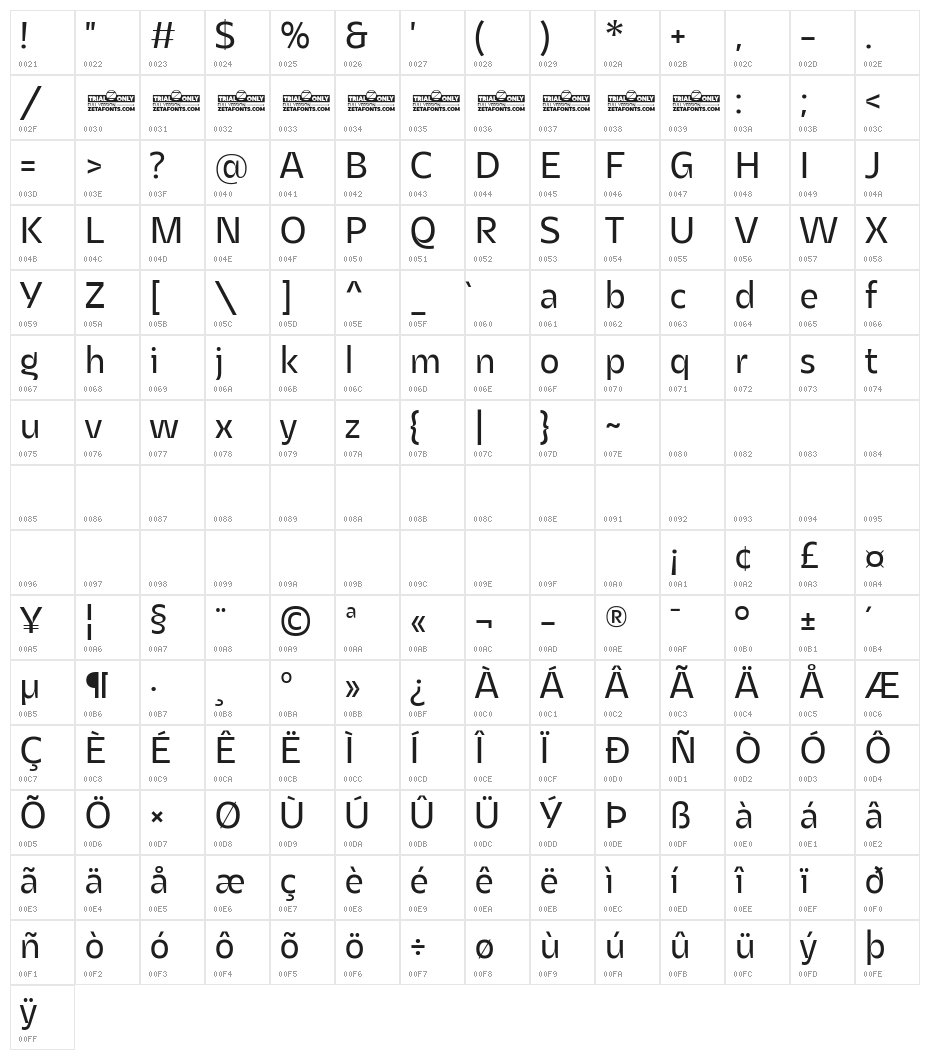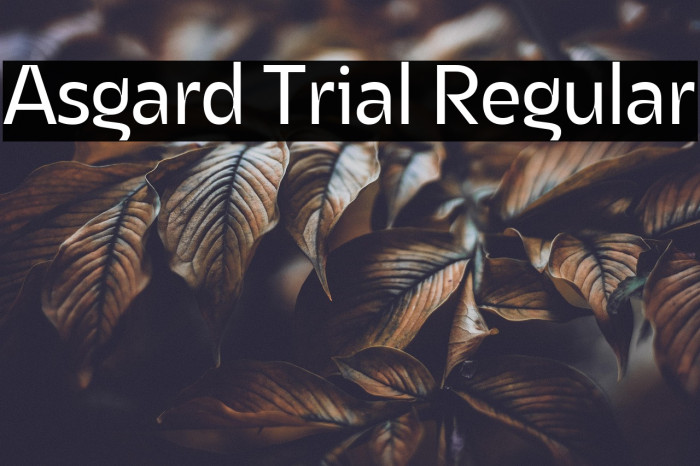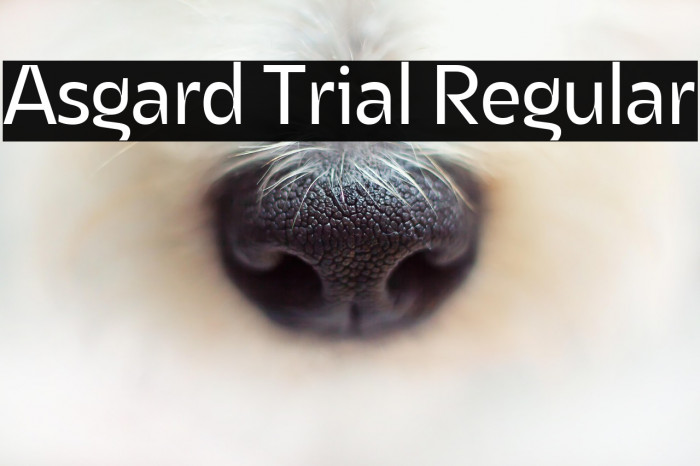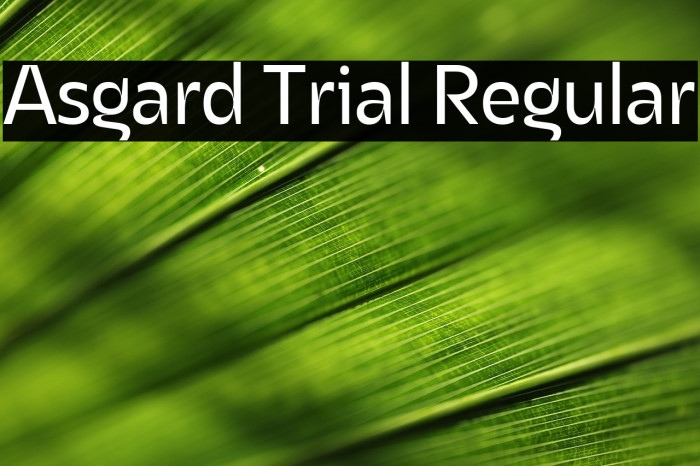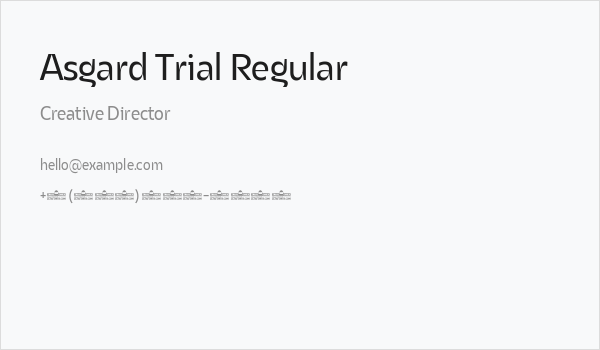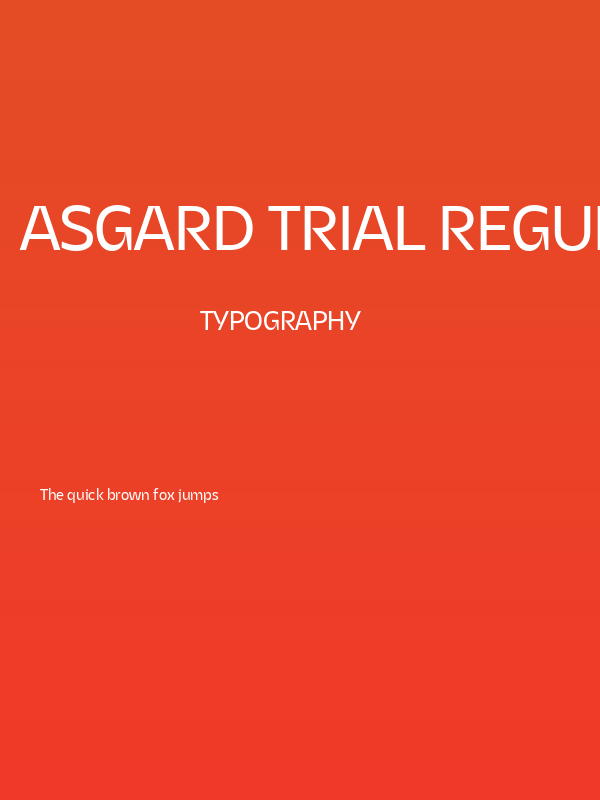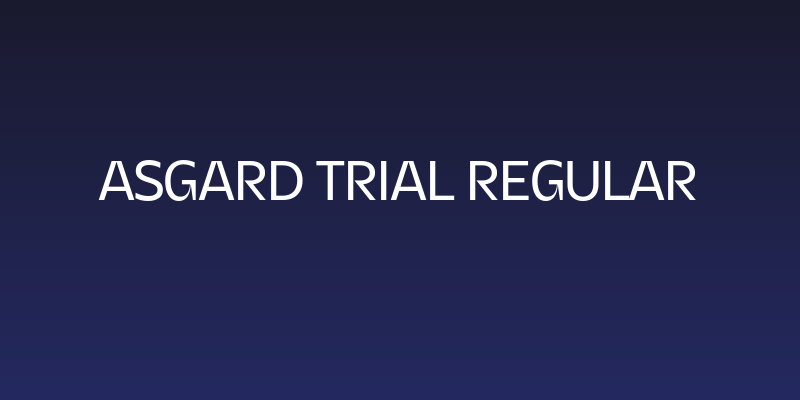
Asgard Trial Regular Font
Asgard Trial Regular Description
This font features a clean and modern sans-serif design with a focus on readability and simplicity. The characters are well-proportioned with a consistent stroke width, providing a balanced and harmonious appearance. The uppercase letters are bold and assertive, while the lowercase letters maintain a friendly and approachable feel. The numerals are clear and easy to read, making them suitable for various applications. Special characters are included, enhancing the font's versatility. Overall, the font exudes a contemporary and professional vibe, making it ideal for both digital and print media.
| Proposed Projects | Ideal for branding, web design, corporate materials, and editorial layouts. |